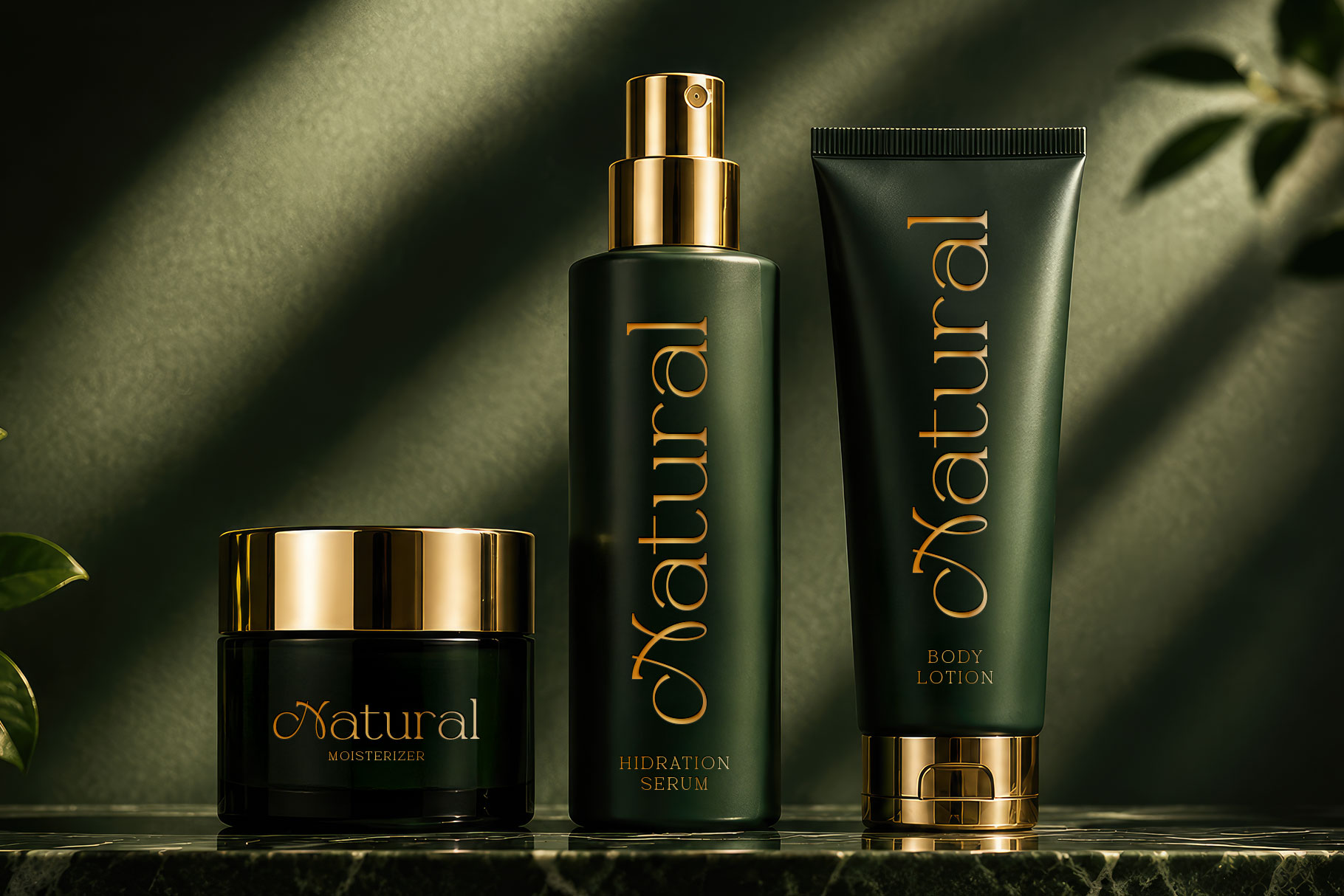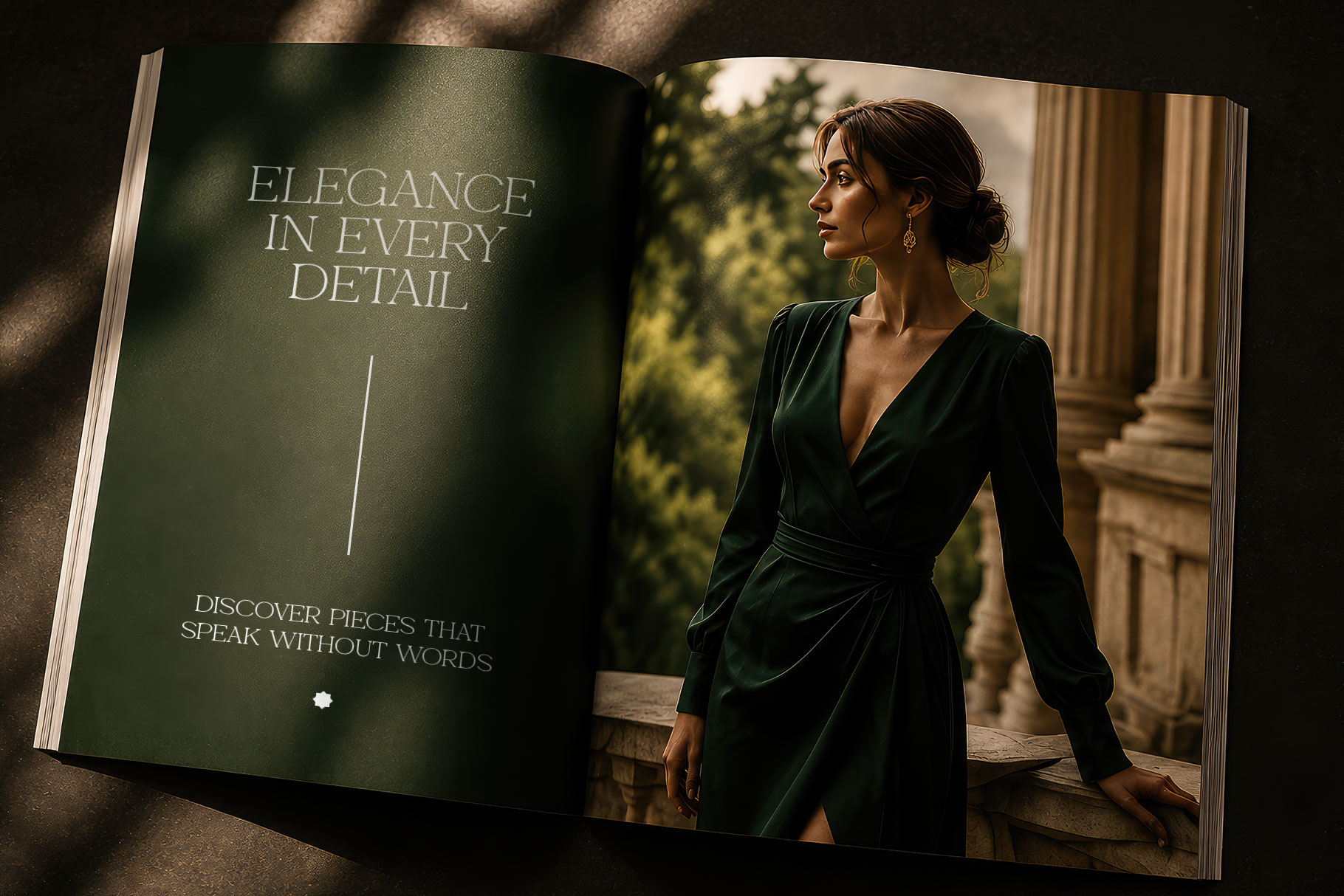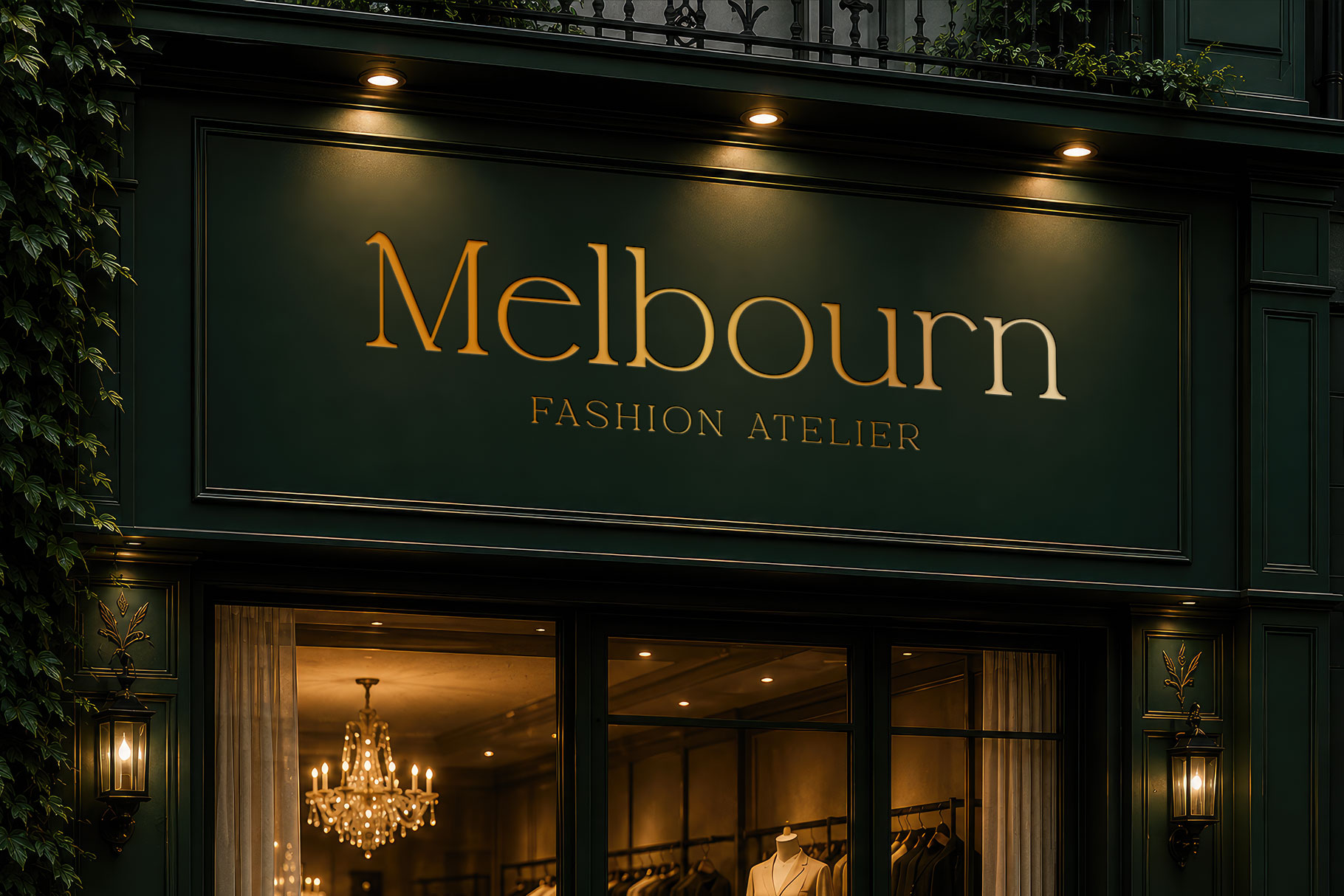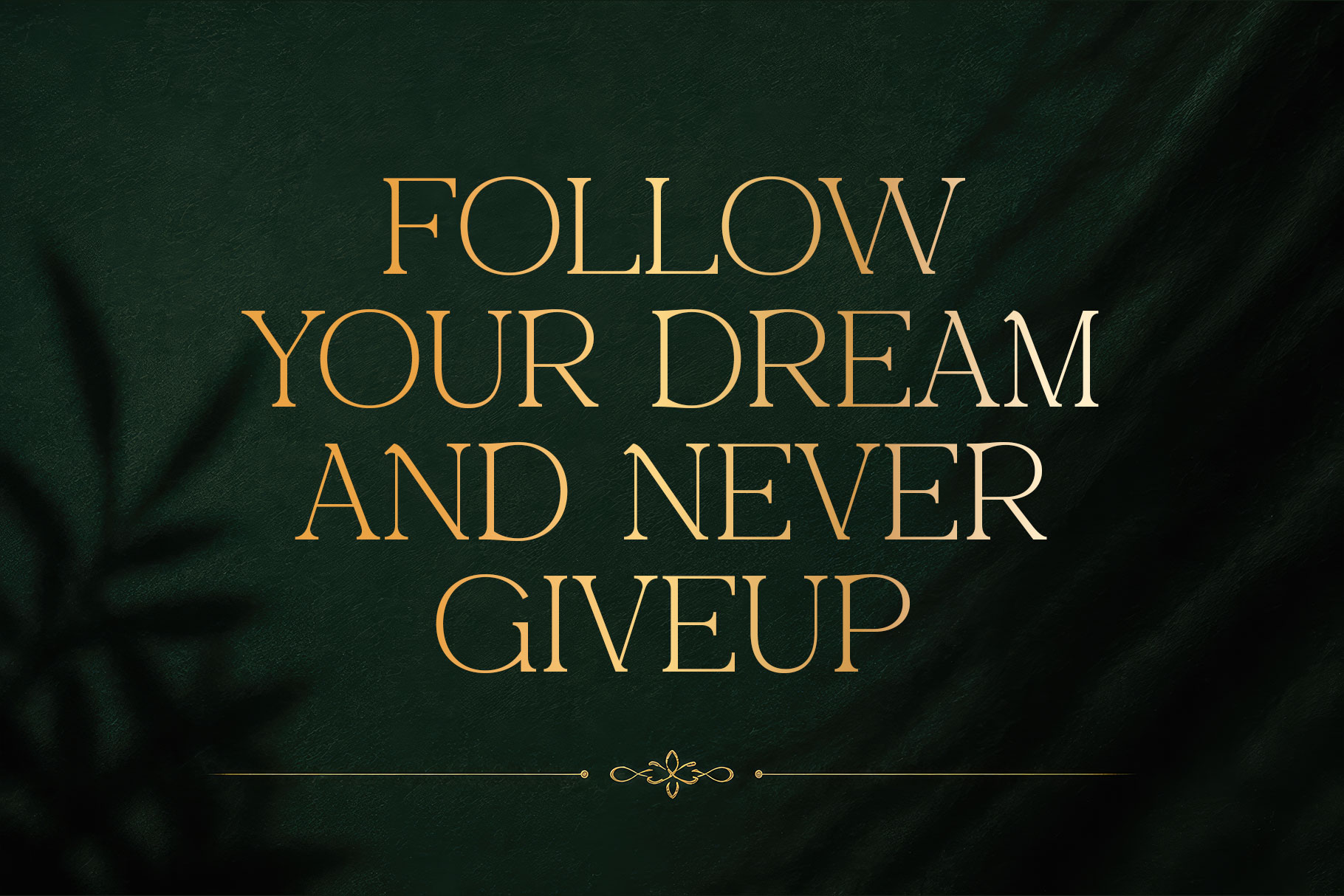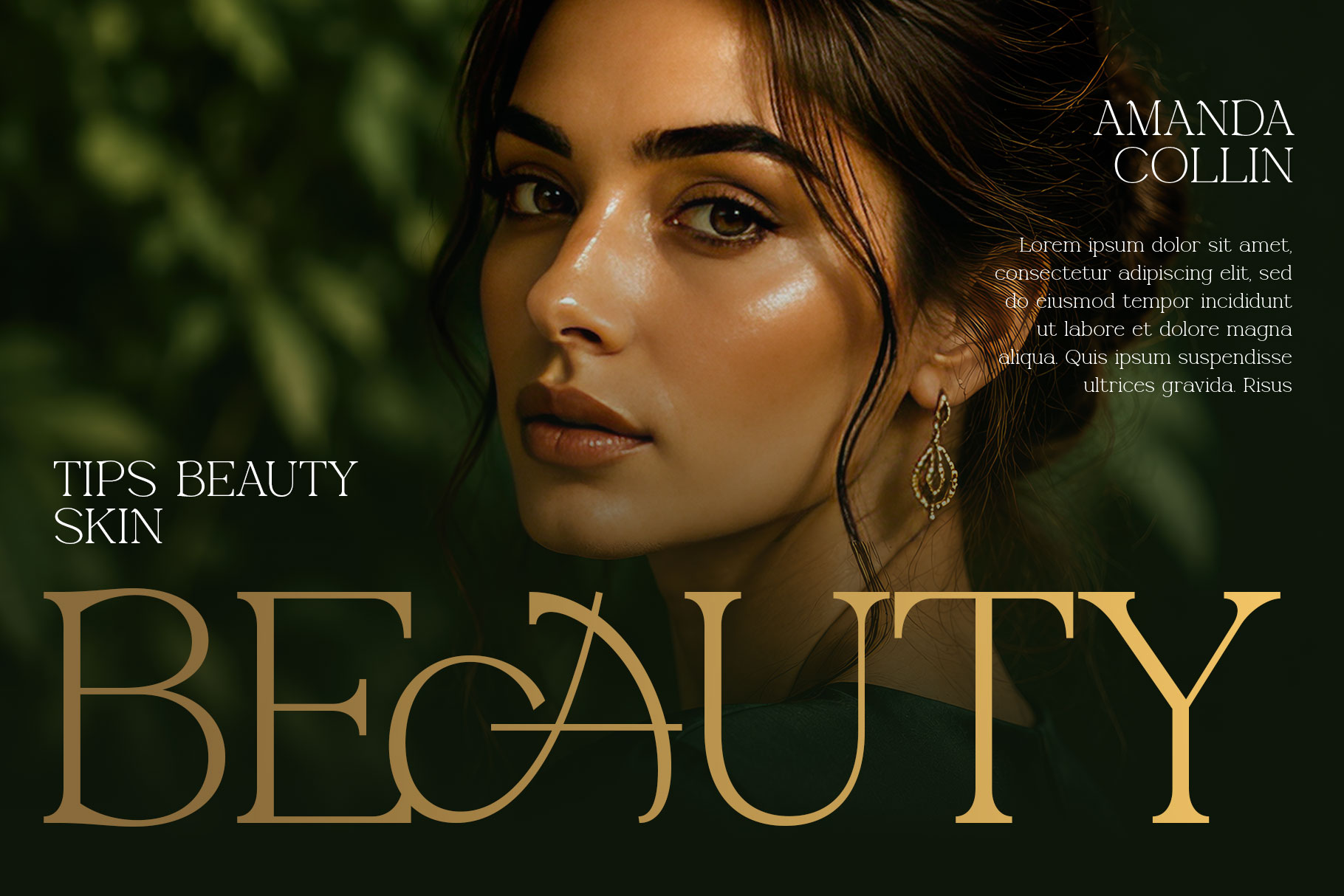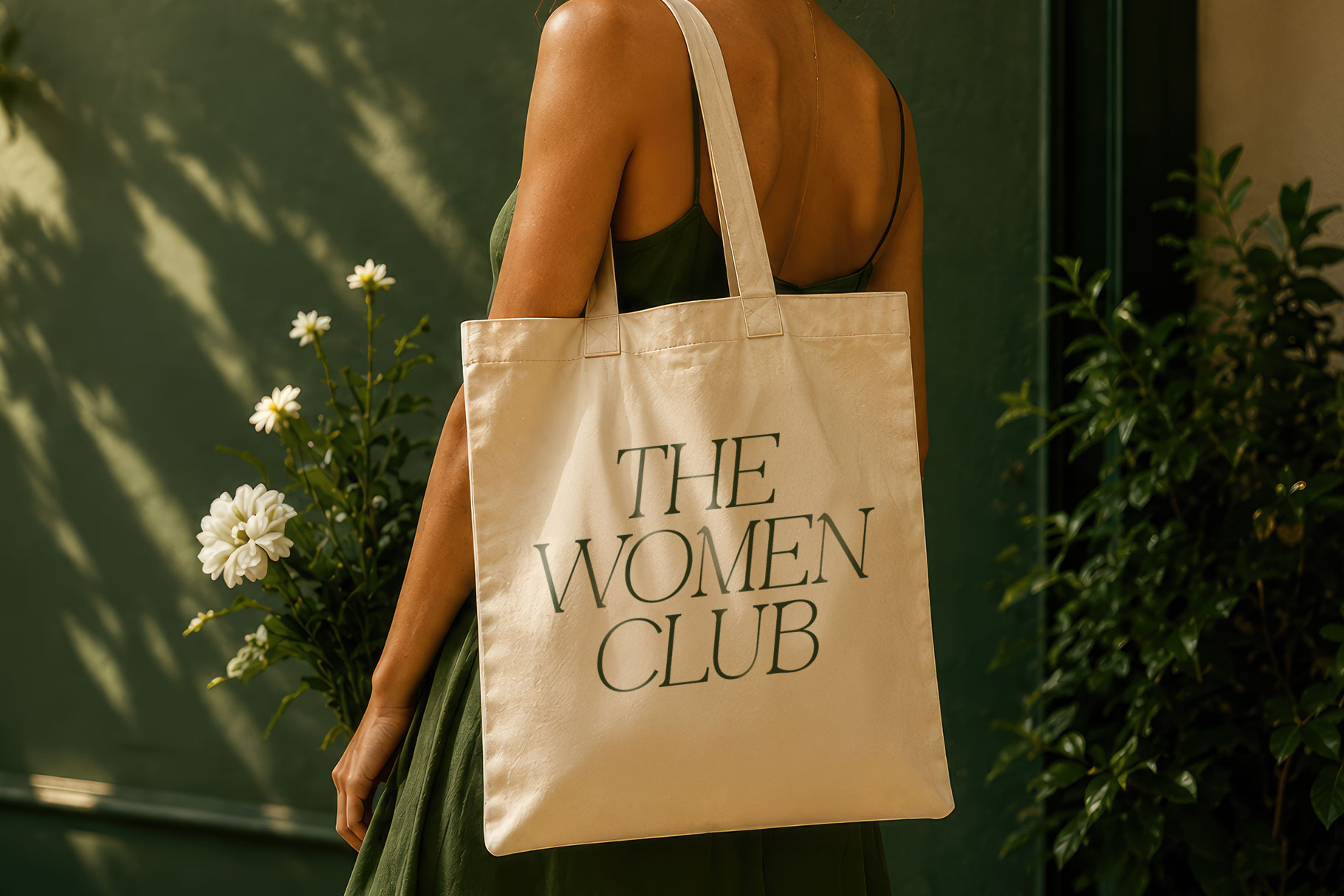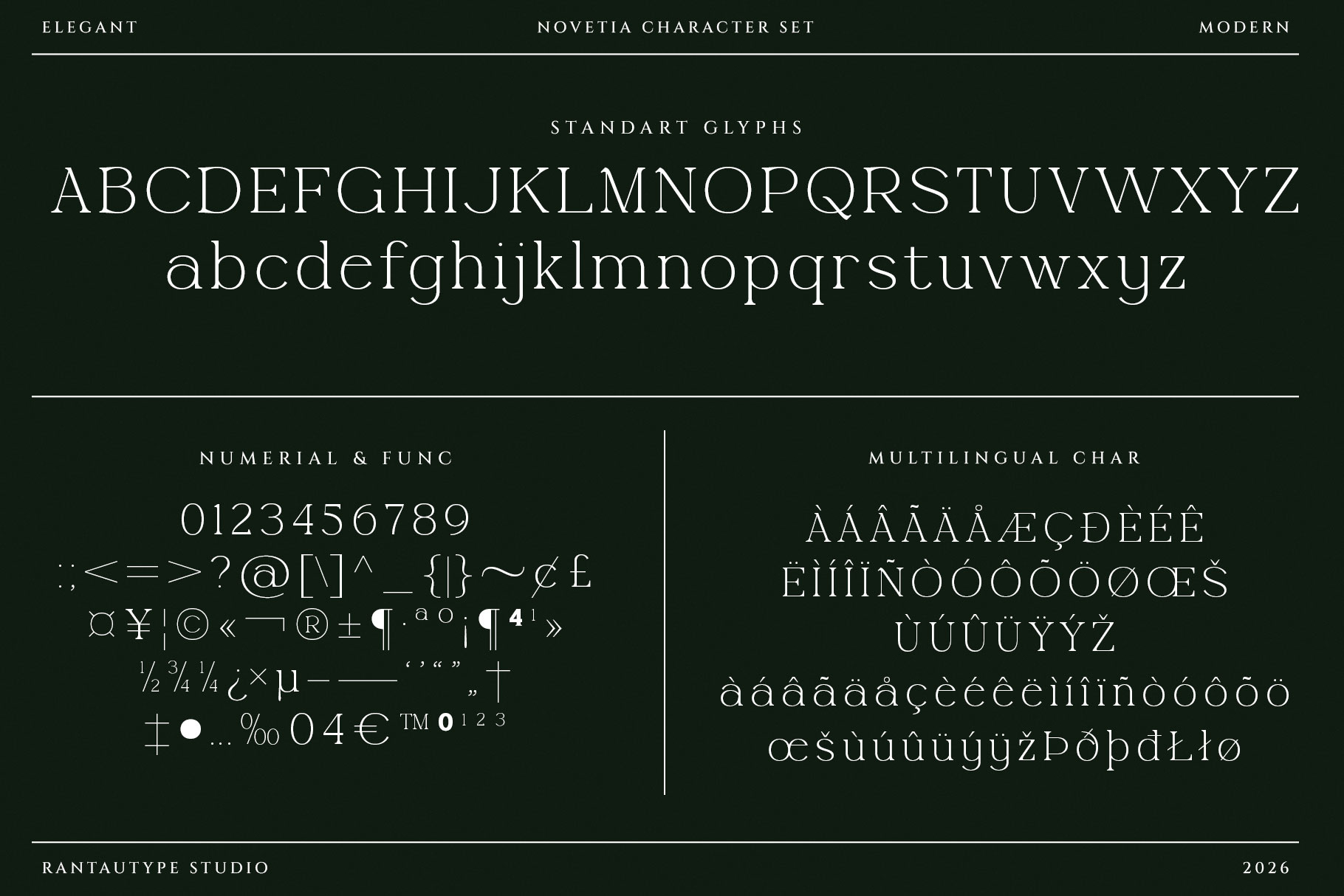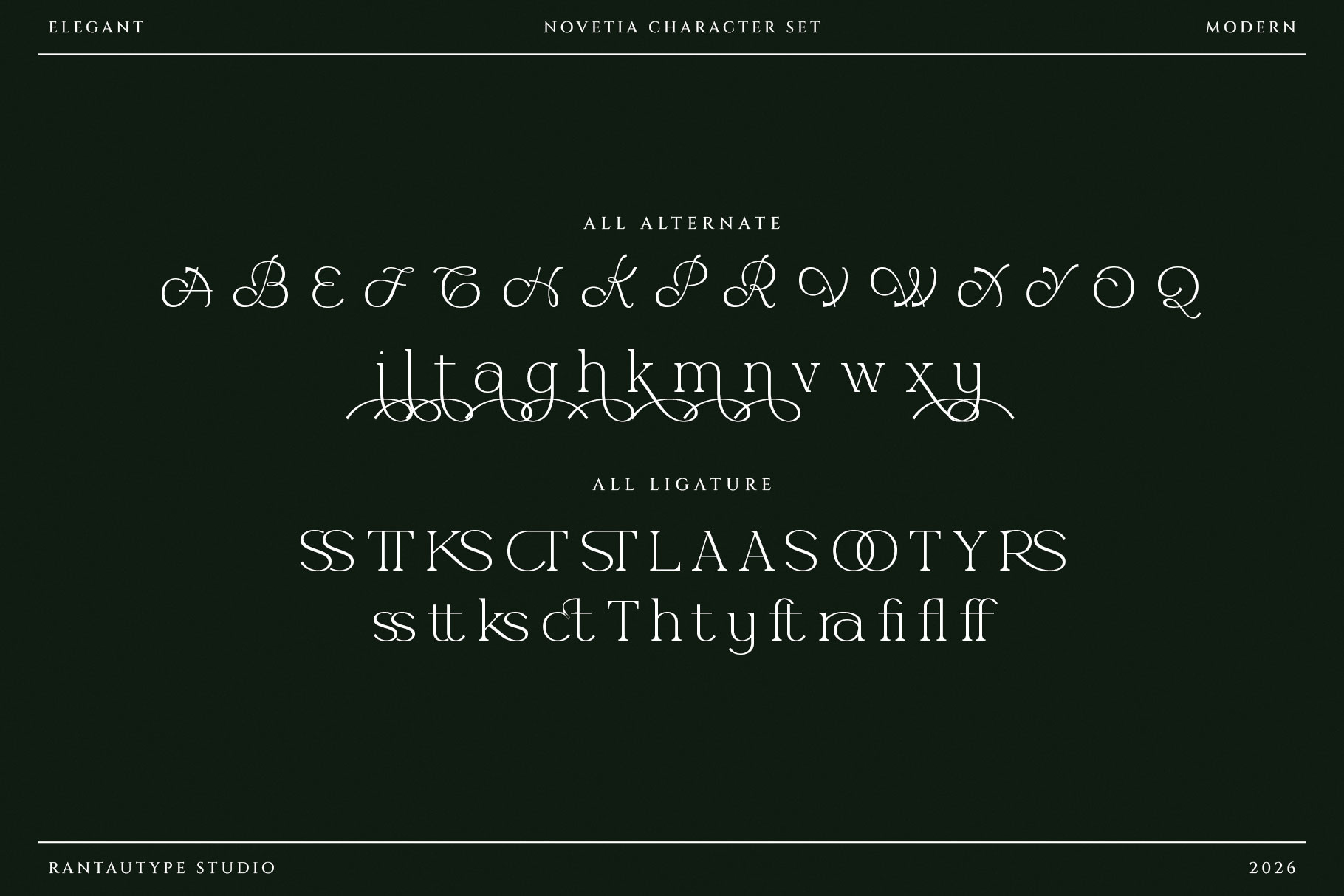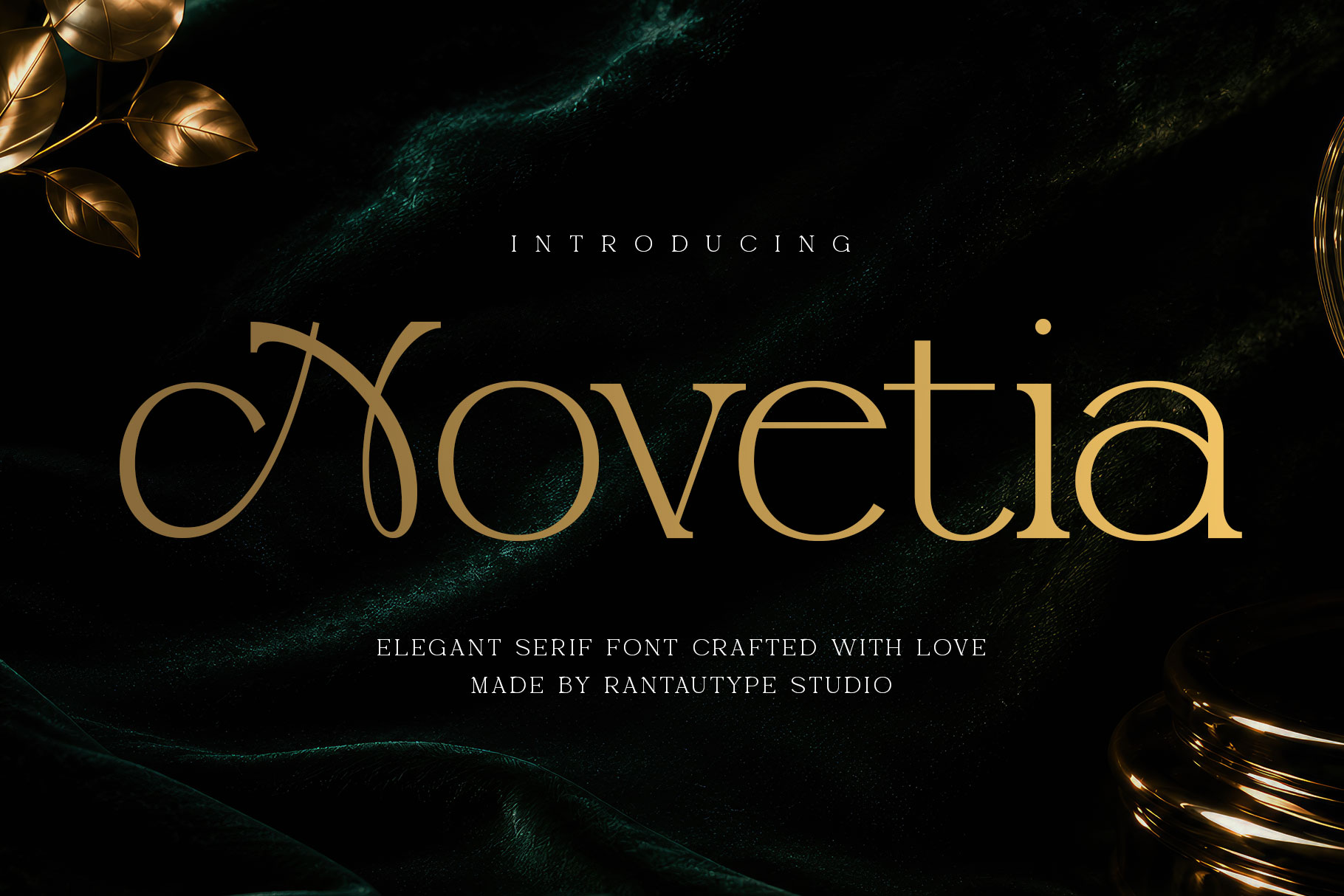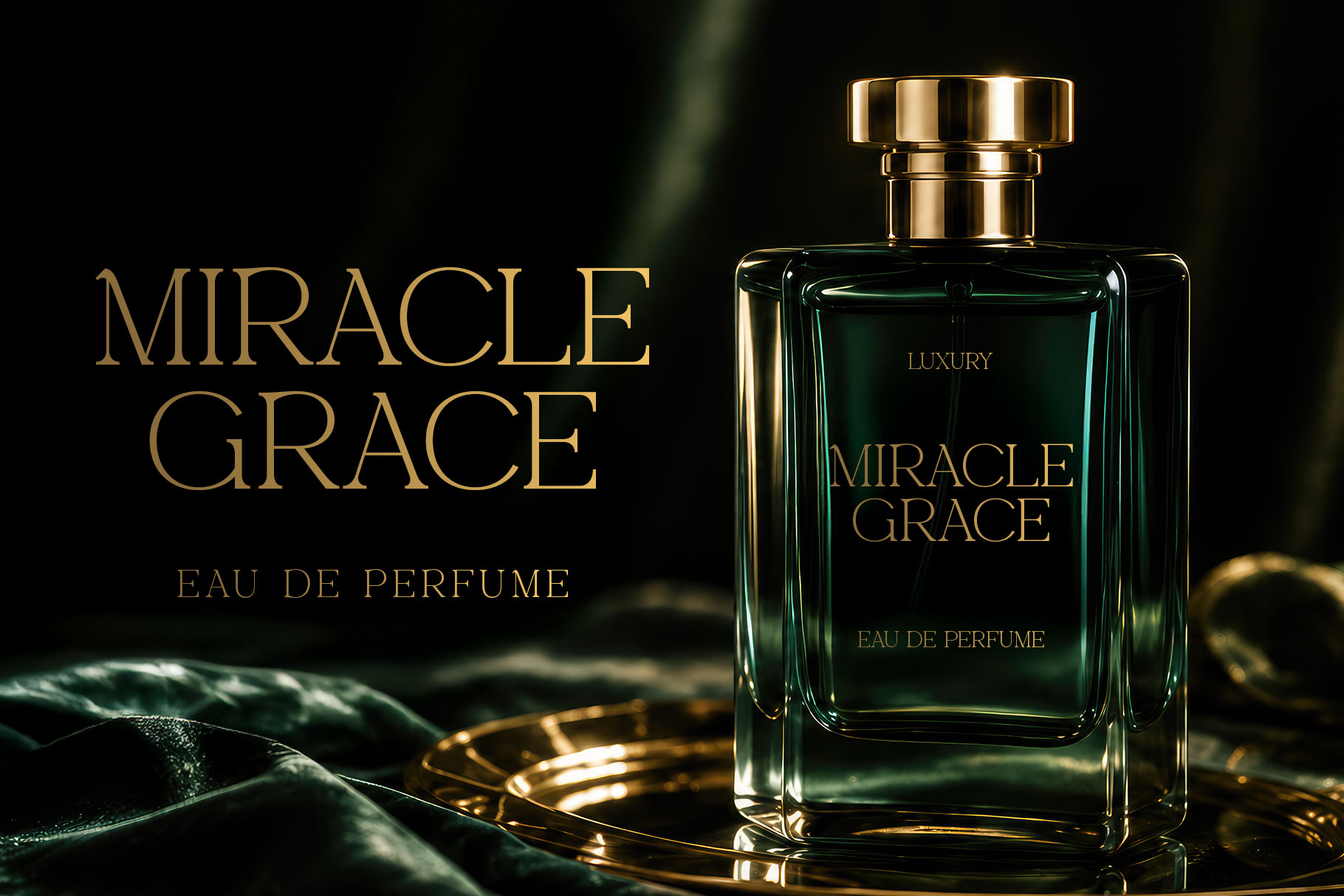
Novetia Regular
Novetia Italic
Novetia is a high-fashion luxury serif with elongated curves, couture-inspired contrast, and refined feminine elegance. Novetia is a perfectly choice for any creative endeavor, creating, modern, lifestyle design such as logotype, title, cover, branding, invitations, wedding designs, display and magazine, social media posts, advertisements, printed quotes, product packaging, corporate brand, product designs, labels, photography, watermarks, special events and any other project with elegant touch.